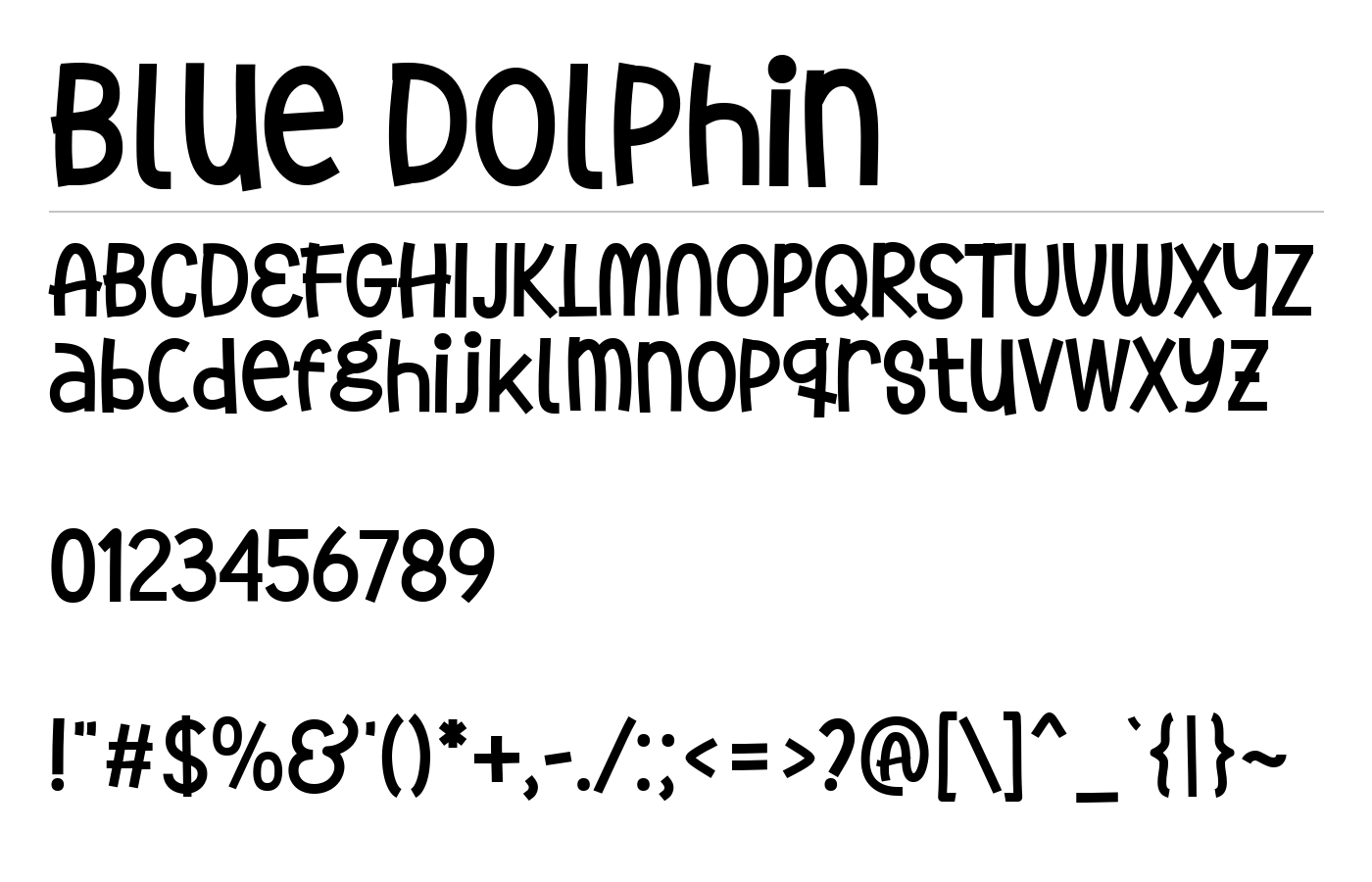
Blue Dolphin is a playful and casual sans serif font that features a hand-drawn, slightly irregular style with medium weight and a tall x-height for good readability. Its quirky letterforms and unique character shapes give it a friendly, informal personality, making it ideal for children's designs, creative projects, and branding that wants to convey warmth and approachability. This font works best in headlines, logos, and packaging where a fun, energetic vibe is desired.
Blue Dolphin Font
About Blue Dolphin Font